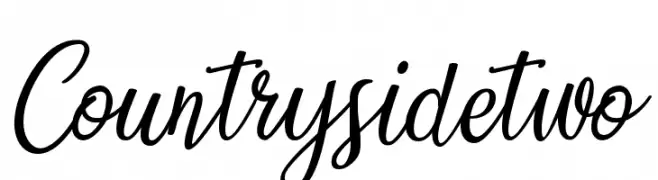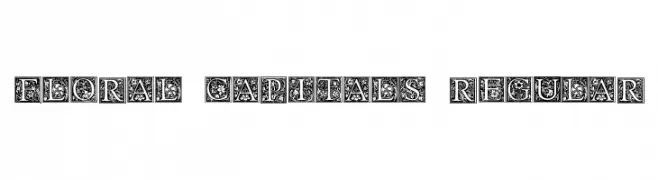
( Shareware - new.myfonts.com/foundry/Intellecta_Design/?refby=paulow )
An elegant, cursive script font with flowing, connected strokes.
( Cooldesignlab - Kurniadi Saputra - creativemarket.com/cooldesignlab?u=cooldesignlab )
An elegant script font with flowing, cursive letterforms and sophisticated style.
( Faldy Kudo - www.creativefabrica.com/ref/216322/ )
An elegant, flowing script font with high contrast and ornate details.
( Just Font You - Ian Irwan Wismoyo - justfontyou.com/ )
An elegant and sophisticated cursive script font with flowing, delicate strokes.
( Noah K. )
An elegant, flowing script with intricate curves and a mystical appearance.
( Vladimir Nikolic - www.coroflot.com/vladimirnikolic )
Ornate decorative capitals with floral designs in a vintage style.
( Vladimir Nikolic - www.coroflot.com/vladimirnikolic )
Intricate snowflake patterns with detailed geometric designs.
( Billy Argel - billyargel.com/ )
A flowing, elegant cursive font with smooth curves and a sophisticated style.
( Cioroianu Stefan Cristian )
An elegant, italicized font with classic Roman influences.
( Dani Foster Herring - dani3d.com/ )
A decorative font with ivy-like embellishments around bold uppercase letters.